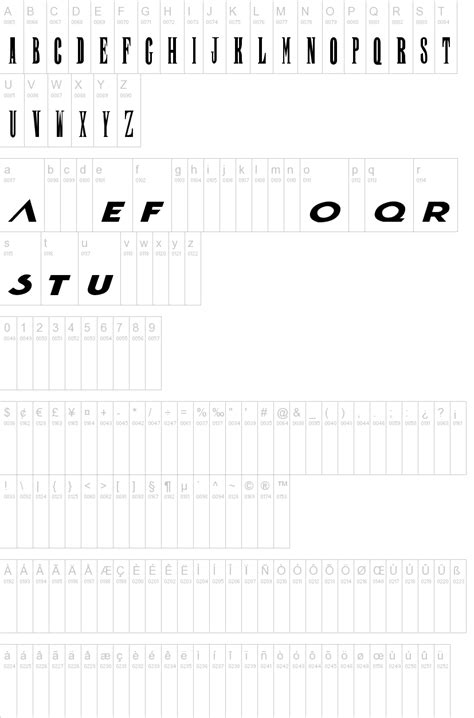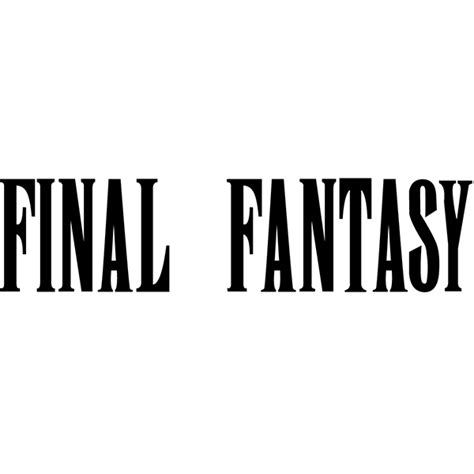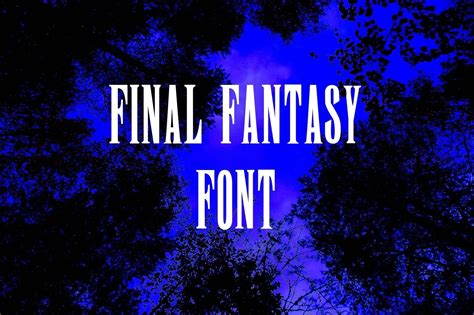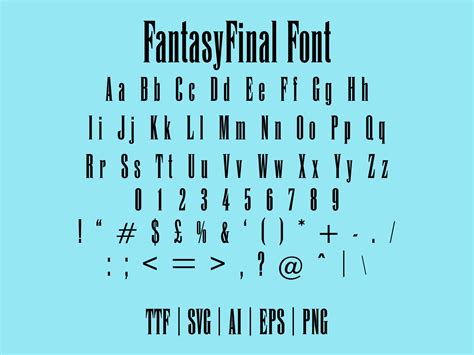
FINAL FANTASY FONT
The final fantasy font is a distinctive and iconic font style that has become synonymous with the popular video game series of the same name. This font is a crucial element in the franchise's visual identity, known for its unique and stylized letterforms that have captivated players and fans worldwide. The font's design is deeply rooted in the series' rich history and has evolved over the years, becoming an integral part of the Final Fantasy universe.
The font's creation is often attributed to the game's developers, who crafted it to match the series' fantasy-themed aesthetics. It features a mix of elegant and bold elements, with intricate details that bring a sense of magic and adventure to the text. The font's versatility allows it to be used in various contexts, from game menus and dialogue to promotional materials and merchandise, ensuring a consistent and recognizable look across the franchise.
One of the key benefits of the final fantasy font is its ability to enhance the immersive experience of the games. The font's unique style adds to the overall atmosphere, making the in-game text more engaging and memorable. Its popularity has led to its widespread use in fan art, merchandise, and even in other media, showcasing its enduring appeal and cultural impact.
This font has also inspired various font-based creations, with fans and designers creating custom variations and derivatives, further expanding the series' visual reach. The final fantasy font continues to be a beloved and recognizable element, leaving a lasting impression on players and fans alike.